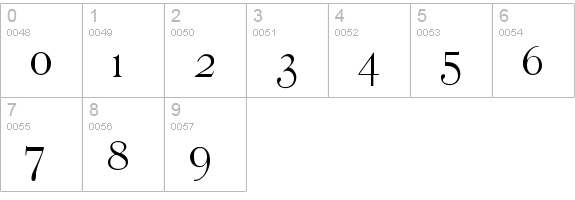
Penshurst Font Details
Penshurst font is a stunning display typeface that exudes elegance and sophistication. With its graceful curves and intricate details, this font is perfect for adding a touch of sophistication to any project. Whether you're designing a wedding invitation, creating a logo, or crafting a headline, Penshurst font is sure to make a lasting impression. What makes Penshurst font even more appealing is that it is free! That's right, this breathtaking font is freely available to download at FontsMarket.com. You no longer have to worry about breaking the bank to obtain a high-quality font that elevates your designs. Penshurst font allows you to unleash your creativity without any financial constraints. With its extensive character set, Penshurst font offers versatility and flexibility. From lowercase letters to uppercase, numerals, and punctuation marks, this font has everything you need to bring your visions to life. It also supports multiple languages, making it accessible to a global audience. The attention to detail in Penshurst font is truly remarkable. Each stroke and curve has been meticulously crafted to create a harmonious balance between elegance and legibility. Whether used in large or small sizes, Penshurst font remains crisp and clear, ensuring your message is conveyed flawlessly. Downloading Penshurst font from FontsMarket.com is a breeze. Simply navigate to the website, locate the font, and click on the download button. In just a few seconds, you'll have this exquisite font at your fingertips, ready to enhance your design projects. So why wait? Embrace the beauty and versatility of Penshurst font today. Download it for free at FontsMarket.com and watch as your designs come to life with a touch of sophistication.